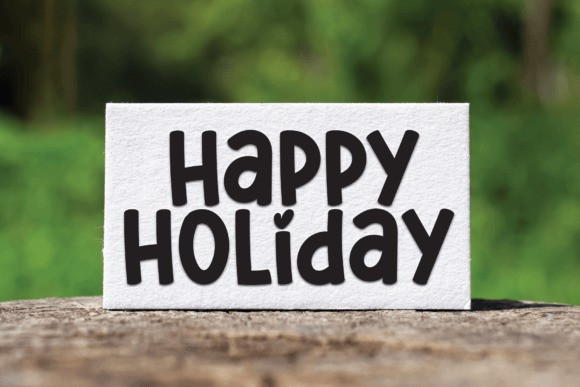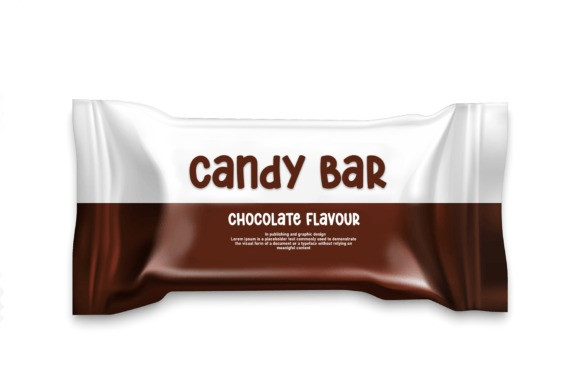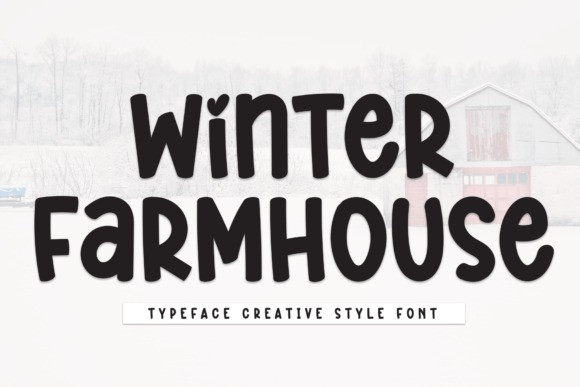
Winter Farmhouse Typeface
Winter Farmhouse feels equally charming and elegant. It looks stunning on wedding invitations, thank you cards, quotes, greeting cards, logos, business cards, and every other design that needs a handwritten touch.